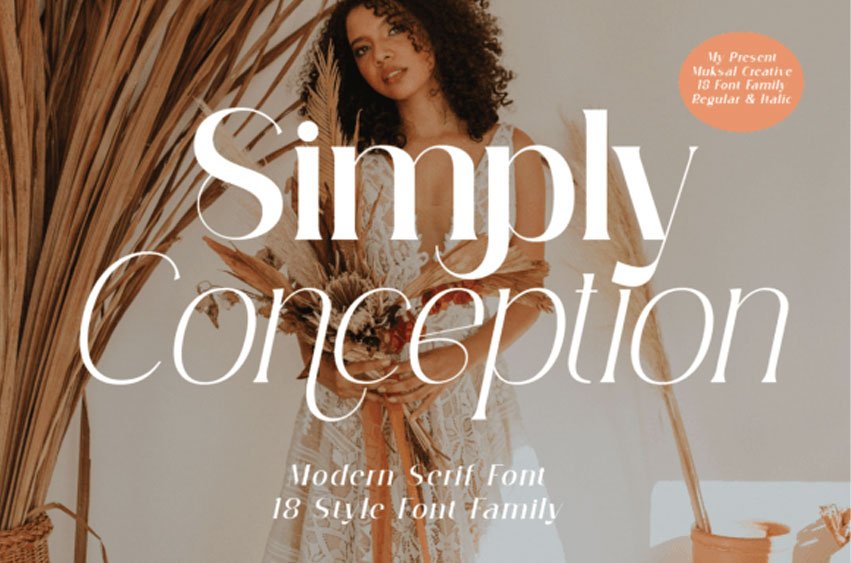
Simply Conception Font is a modern and stylish serif font.
Fall in love with its incredibly versatile style and use it to create gorgeous wedding invitations, beautiful stationery art, eye-catching social media posts, and much more!